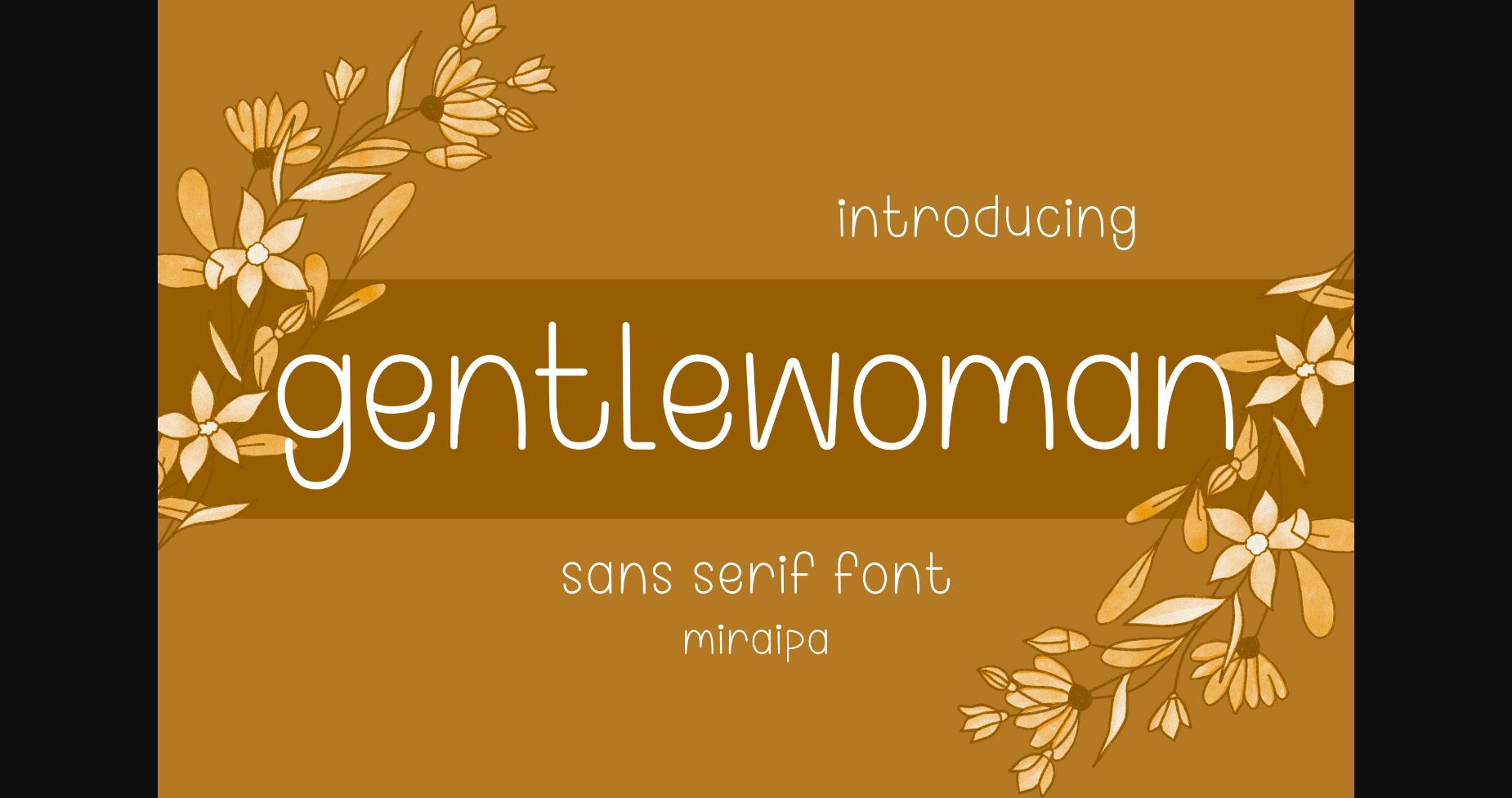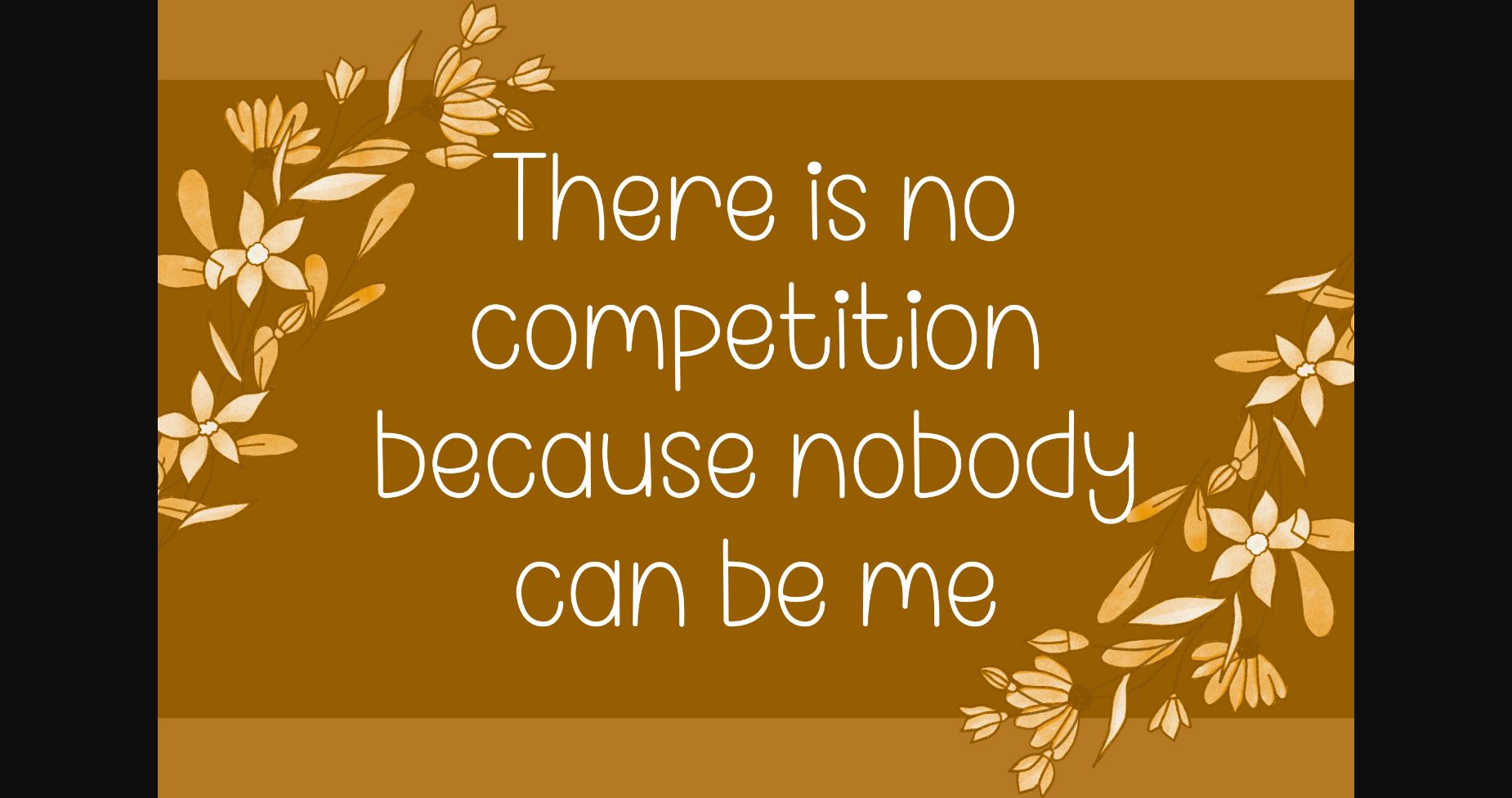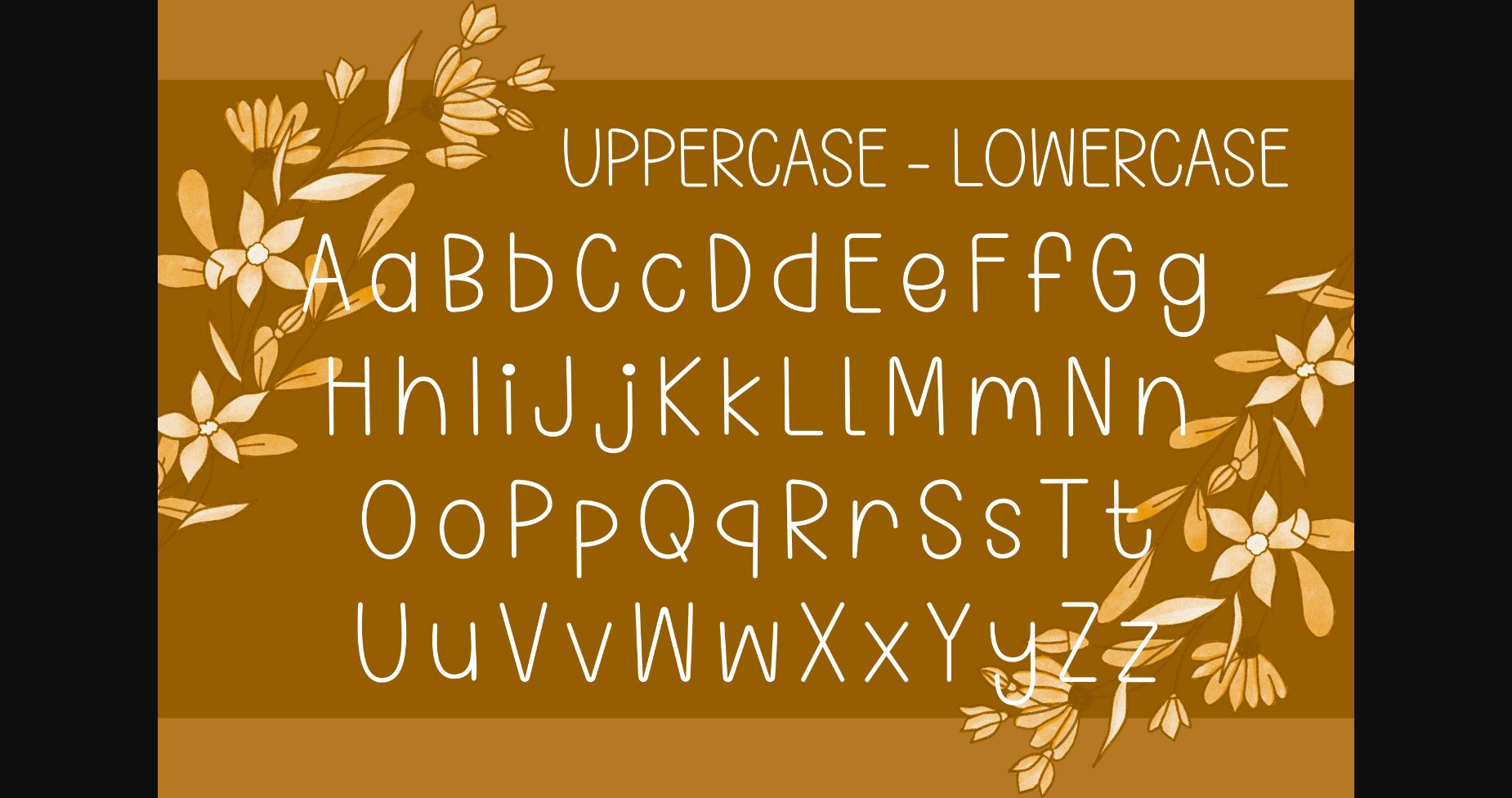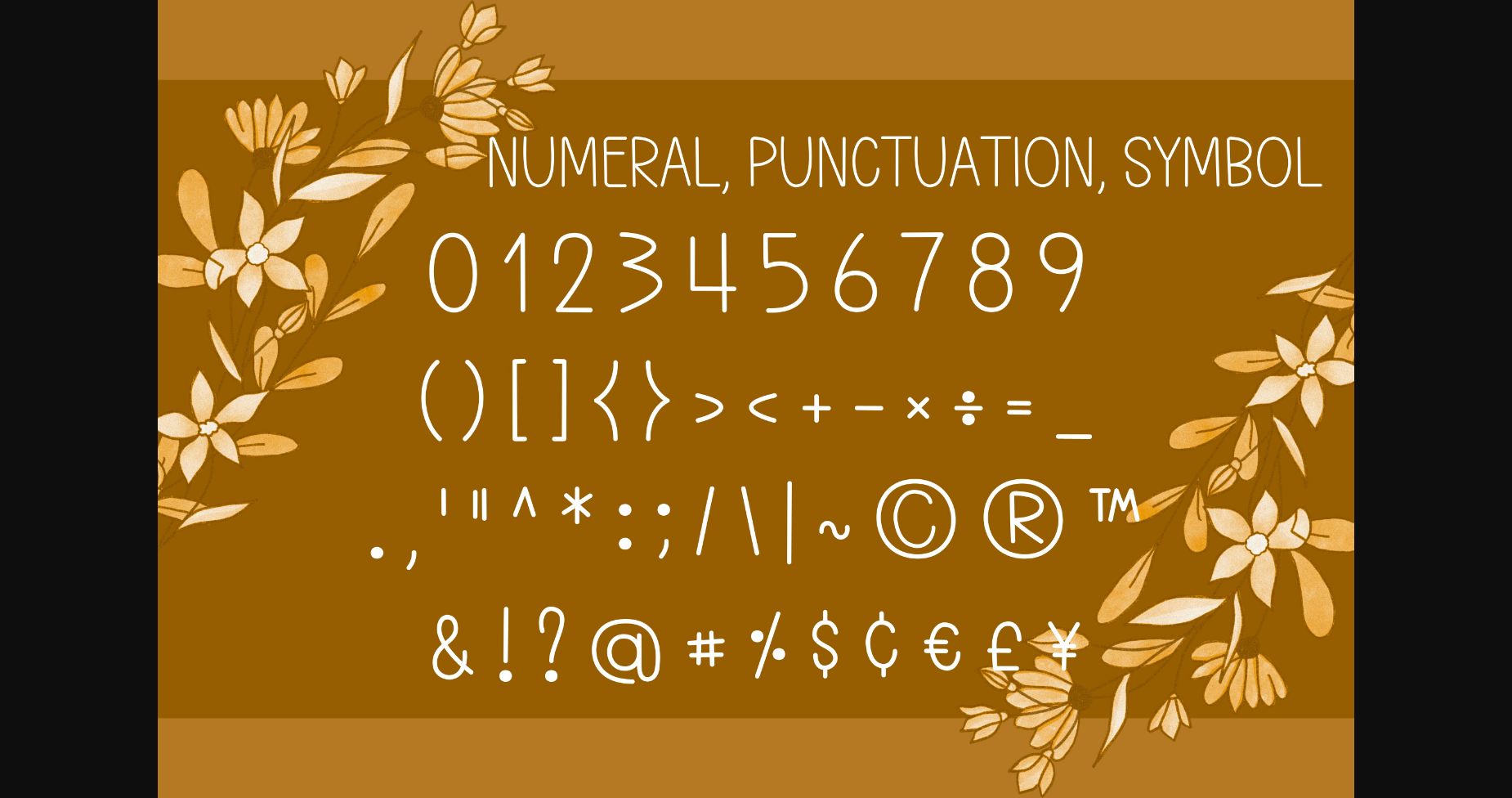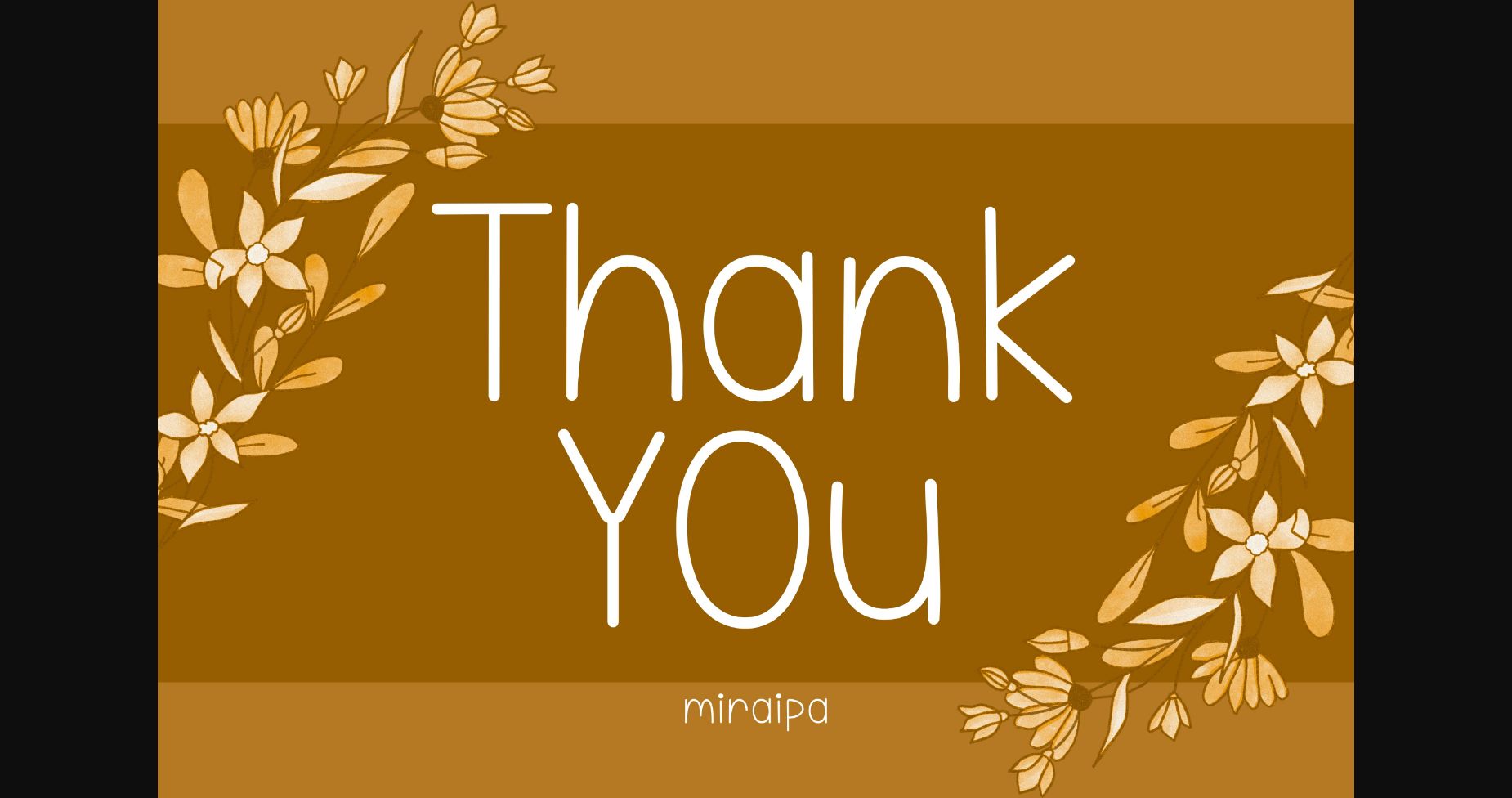
Gentlewoman Font
About Gentlewoman Font
Gentlewoman is designed in a modern and friendly handwritten sans serif font style. It would be awesome to your projects or diary planner. Let’s try it to your perfect projects such as Easter, back to school, wedding, party decoration, invitations, Fall, Halloween, Christmas, posters, blogs, clothing, child-related designs, greeting cards, social media posts or anything that needs a friendly touch. Add it now to your fonts library, and it will bring any of your DIY projects to life.